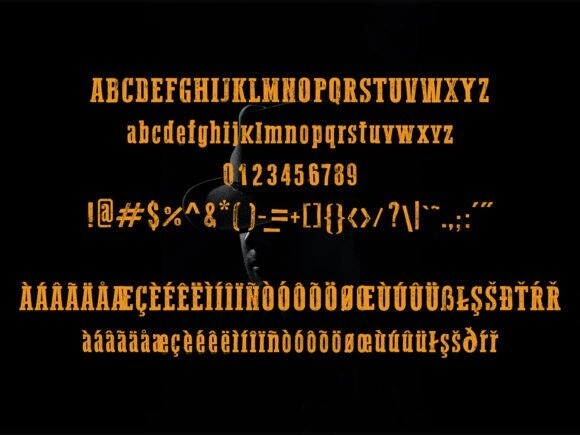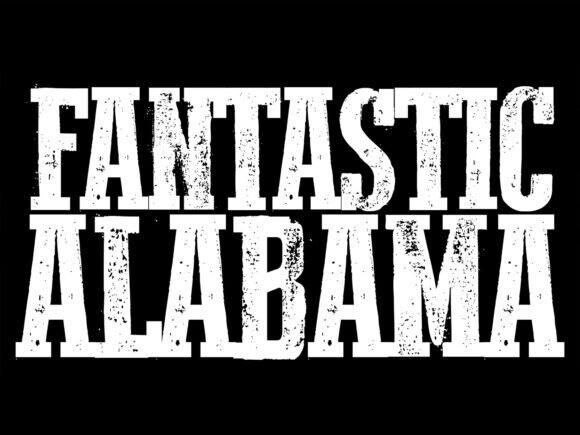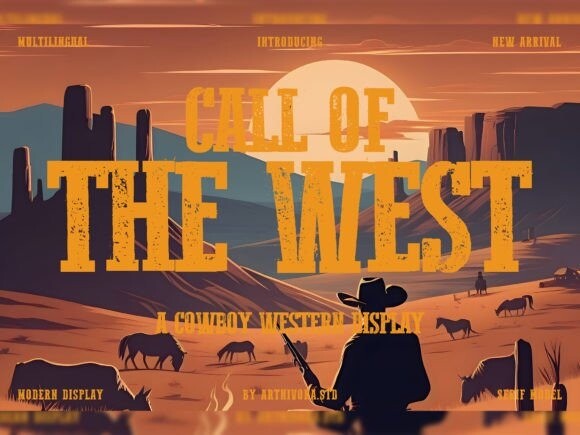
Call Of The West Font
Call of the West Font, a cowboy western display font. This font captures the spirit of the frontier with bold, rustic letters that echo the untamed landscapes of the Old West. Perfect for adding a touch of cowboy flair to your designs, “Call of the West” is ideal for posters, signage, or any project that calls for a dash of Western authenticity. Saddle up and let your creativity ride the trails of the frontier with this bold and adventurous typeface.